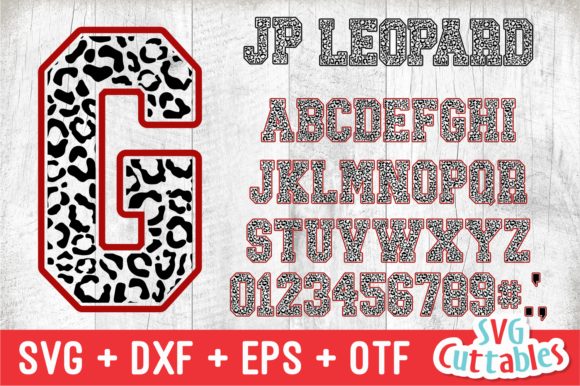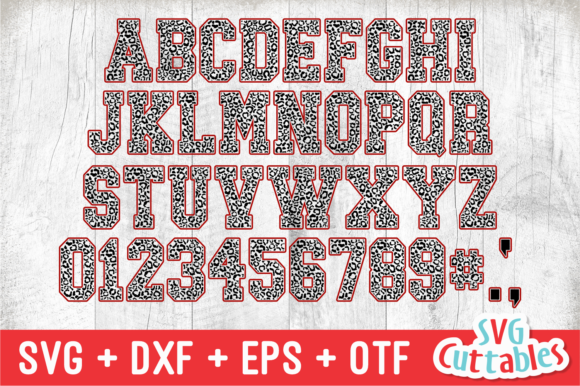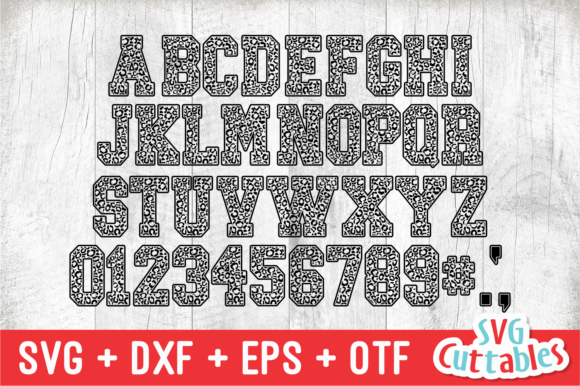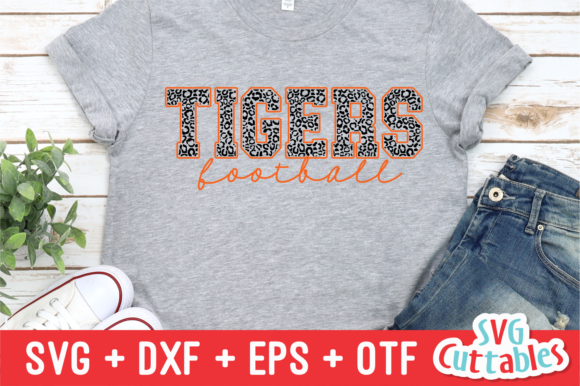
JP Leopard Font: A Wild Display Font for Cricut Crafts!
About the JP Leopard Font
Make a bold statement with JP Leopard Font, a powerful and memorable font. JP Leopard is a cool and uniquely designed decorative font. it looks fun and creative on a variety of design ideas, so add it confidently to your creations and amaze your readers.
JP Leopard’s playful, bold character makes it ideal for headlines, short impactful statements, logos, and branding projects needing a touch of fun and energy. It excels in posters, packaging for youthful products, and social media graphics where visual impact is key. Avoid using it for body text or lengthy paragraphs; its decorative nature makes it less legible at smaller sizes.
Consider pairing JP Leopard with a clean sans-serif like Open Sans for readability in supporting text or a classic serif like Garamond for a sophisticated contrast. For a more modern feel, pair it with a geometric sans-serif such as Futura.
The font’s overall personality is energetic and expressive, making it a strong choice for brands targeting a younger, more creative audience.